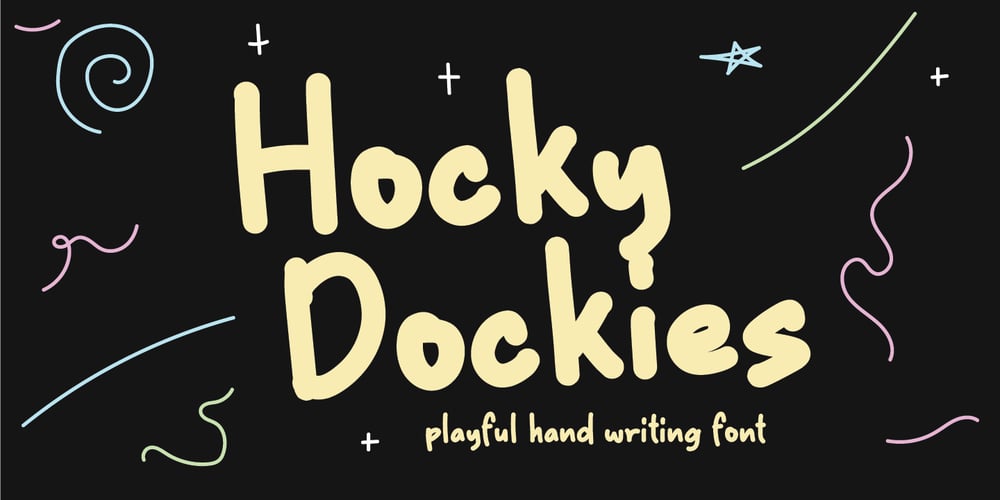
Hocky dockies Font Family was designed by Studio LetterStock and published by LetterStock. Hocky dockies contains 1 styles and family package options. Hocky Dockies is modern sans font insprire by kids poster lettering art.Hocky Dockies is a perfectly choice for any creative endeavor, chic, lifestyle design such as logos, advertisements, watermark on photography, stationery, branding project, display and magazine, invitation, corporate brand, product design, label, business project and many other project with creative playful touch.What you have:- Standart Glyphs- Numberial and Functional- Works on PC & Mac- Simple installations- Accessible in Adobe Illustrator, Adobe Photoshop, Adobe InDesign, even work on Microsoft Word.Fonts include Multilingual Character for: Afrikaans, Albanian, Asu, Basque, Bemba, Bena, Breton, Chiga, Cornish, Dutch, English, Estonian, Filipino, Finnish, Friulian, Galician, Gusii, Indonesian, Irish, Italian, Kabuverdianu, Kalenjin, Kinyarwanda, Luo, Luxembourgish, Luyia, Machame, Makhuwa-Meetto, Makonde, Malagasy, Manx, Morisyen, North, Ndebele, Nyankole, Oromo, Portuguese, Quechua, Romansh, Rombo, Rundi, Rwa, Samburu, Sango, Sangu, Scottish, Gaelic, Sena, Shambala, Shona, Soga, Somali, Spanish, Swahili, Swedish, Swiss, German.Thank you for your purchase!Hope you enjoy with our font!